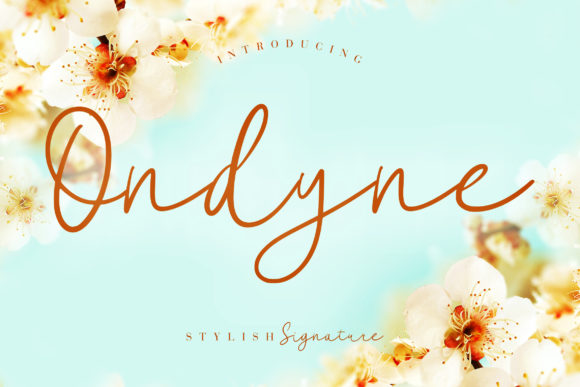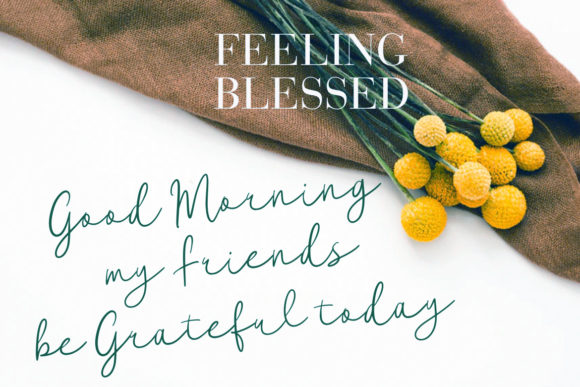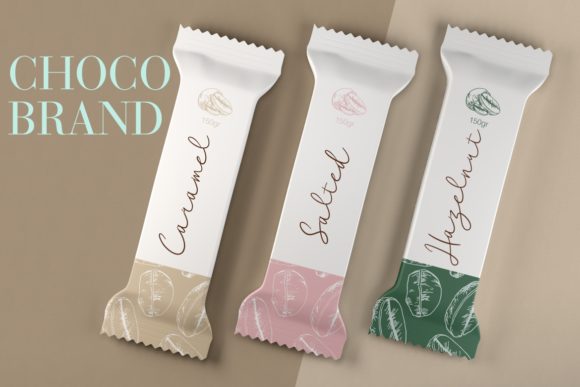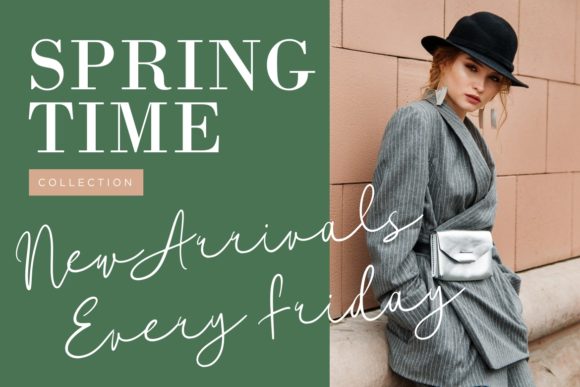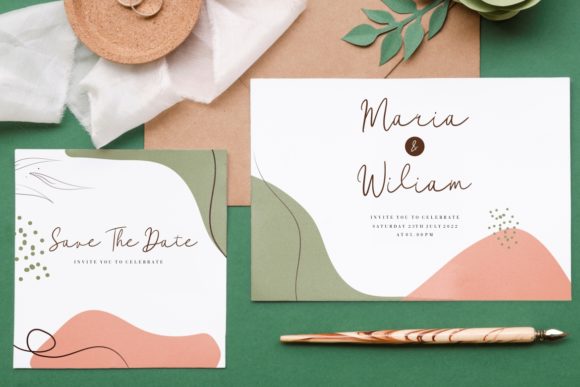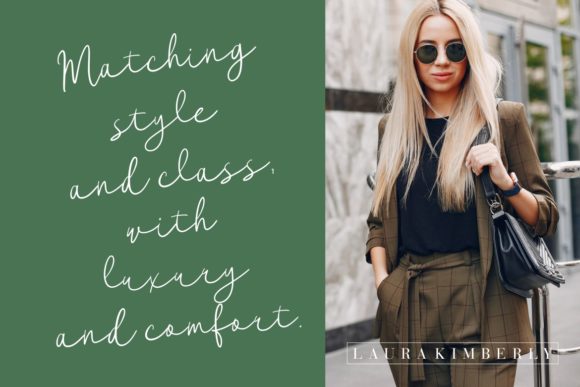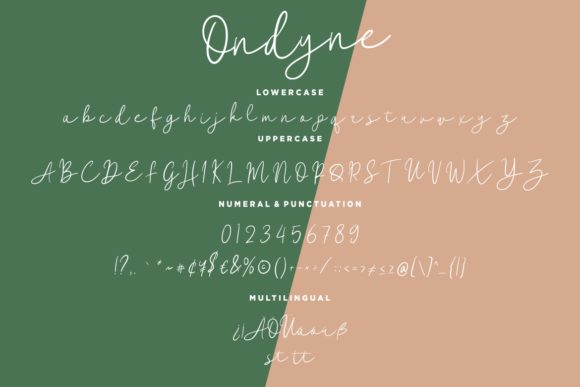
Ondyne Font
About Ondyne Font
Ondyne is an incredibly relaxed and flowing handwritten font. Fall in love with its incredibly versatile style and use it to create gorgeous wedding invitations, beautiful stationary art, eye-catching social media posts, and much more!